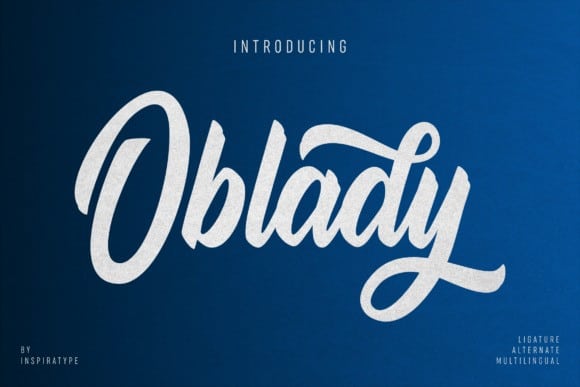
Oblady Bold Script Font
Oblady is an elegant handwritten font, designed with the help of a brush pen. Fall in love with its incredibly versatile style and use it to create gorgeous wedding invitations, beautiful stationary art, eye-catching social media posts, and much more!
“Oblady Font” has an organic, friendly and casual feeling. You’ll be able to add some variety and contrast to your design with the matching casual hand written feeling.